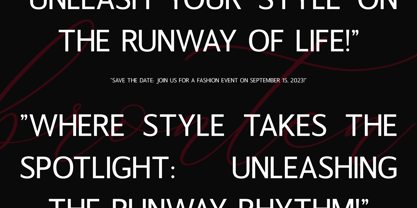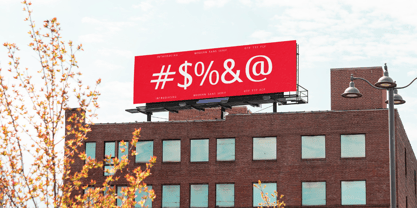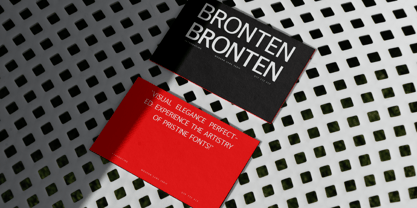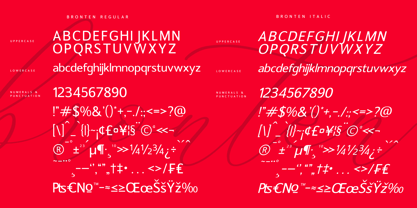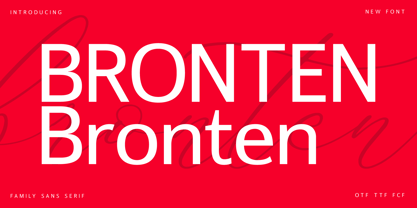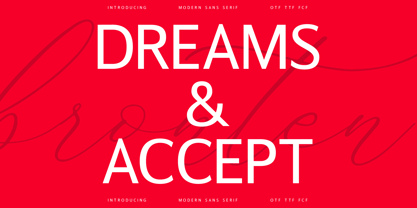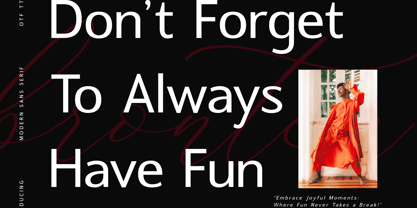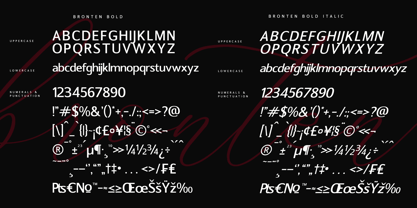
Bronten
The Bronten Font Family was designed by Heru Utama Putra and published by Letterena Studios. Bronten contains 2 styles.
Bronten is a modern and classic typeface that has a unique style & modern look. It is perfect for an elegant & luxurious logo, book or movie title design, fashion brand, magazine, clothes, lettering, quotes, and so much more.